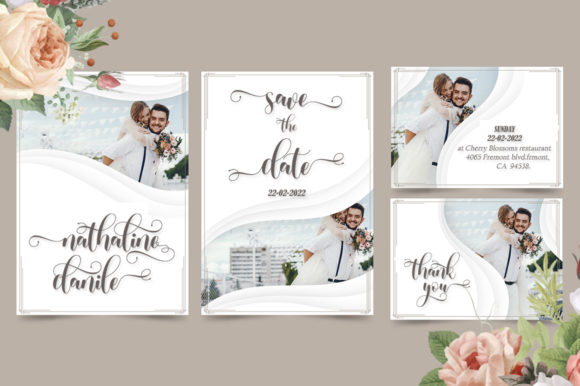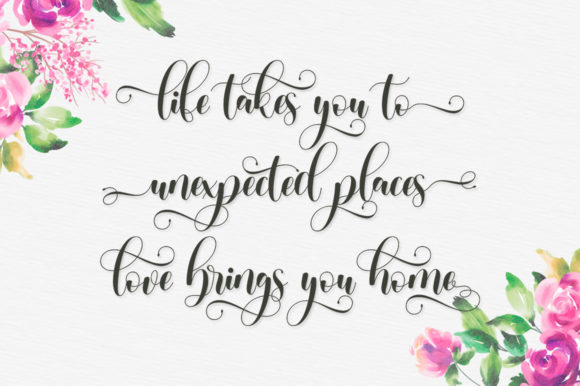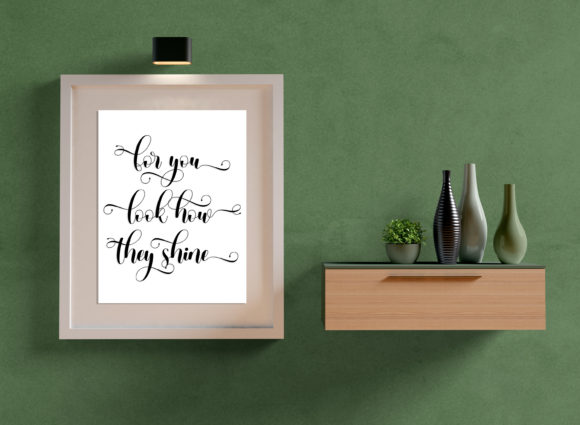
Introduction to Lenastanela Font
Have you ever been working on a creative project, pouring your heart and soul into it, only to be held back by the perfect font? For many designers, this is a frustrating reality. But what if you could find the perfect font that captures the essence of your vision, elevating your design from good to great? That’s where Lenastanela Font comes in – a stunning script font that will leave you and your audience spellbound.
As a valuable design resource, Lenastanela Font offers a high-quality, elegant look that’s perfect for adding a touch of sophistication to your next creative project. With its beautiful letters and extravagant swashes, this font is sure to become your go-to choice for any design that requires a romantic charm.
Key Features of Lenastanela Font
- High-quality design resource suitable for various creative projects.
- Comes with a transparent background, allowing for versatile usage in designs.
- Unique characteristics: elegant, modern, and sophisticated design style.
- Perfect for designers seeking a stylish and professional font for their projects.
Honest Review: Lenastanela Font
I recently had the opportunity to work with the Lenastanela Font, and I must say, it’s been a game-changer for my creative project. As a designer, I’m always on the lookout for high-quality design resources that can elevate my work.
The Lenastanela Font is a great addition to my design toolkit. It offers a unique blend of modern and vintage flair that works beautifully for a variety of applications. I’ve used it for logo designs, typography-based artwork, and even web graphics.
- High-quality vector graphics
- Transparent background options
However, I did encounter some limitations: ⚠️
- Limited character set
- Not ideal for body text due to its ornate design
Overall, I’m really impressed with the Lenastanela Font. It’s a great design resource for anyone looking to add a touch of sophistication to their creative project. While it may not be perfect for every application, I highly recommend it for its unique style and high-quality design.
The Lenastanela Font is ideal for creating eye-catching designs, such as:
Logo designs with transparent background
Infographics with high-quality visuals
Social media graphics with creative typography
For the best results, use the Lenastanela Font with a transparent background and experiment with different font sizes and colors to create a unique design.
Alternatives to Lenastanela Font
Montserrat Font is a high-quality sans-serif typeface ideal for creative projects requiring a modern look. It’s available for free download and features a transparent background, making it perfect for designing logos, websites, and mobile apps. When to use: For projects that demand a sleek, urban feel.
Montserrat Font compares to Lenastanela Font by offering a more modern and condensed design, suitable for digital platforms.
Open Sans Font is a versatile, open-source sans-serif typeface suitable for a wide range of design projects. It’s a high-quality design resource that features a transparent background, making it ideal for web design, mobile apps, and print materials. When to use: For projects requiring a clean, approachable look.
Open Sans Font compares to Lenastanela Font by offering a more neutral and readable design, suitable for a broader audience.
Lato Font is a high-quality sans-serif typeface designed for digital platforms, featuring a transparent background and a clean design. It’s an excellent choice for creative projects requiring a modern, yet elegant look. When to use: For projects that demand a sophisticated, yet approachable feel.